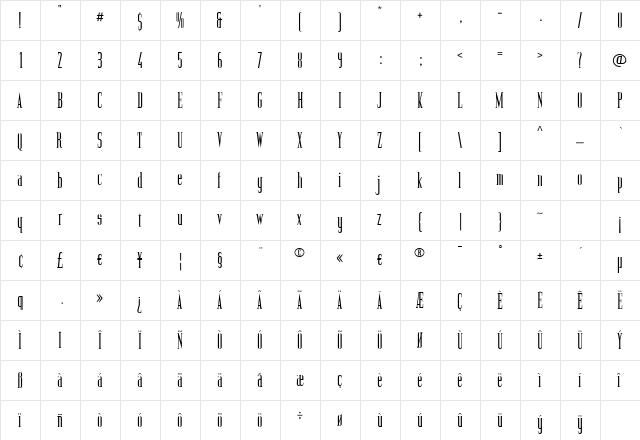
Offbeat Medium
Design Context for Offbeat Typeface
Offbeat offers clean, dependable letterforms without strong stylistic allegiance, making it a practical choice for designers who need flexibility.
Pro Tip: Pair Offbeat with a font of contrasting weight or personality to build a more expressive typographic hierarchy.